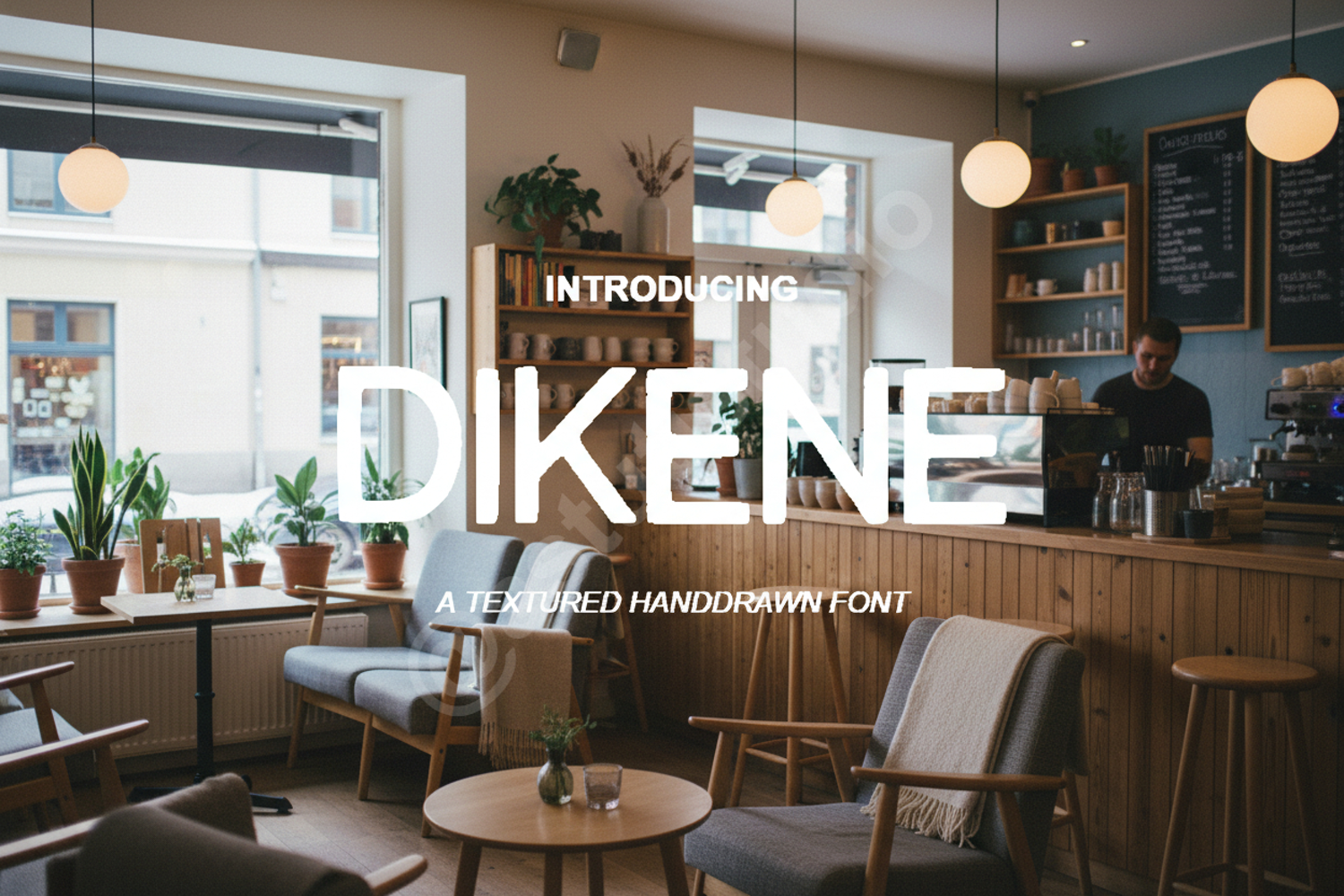
Dikene - Elegant & Modern Serif Typeface
Dikene
Elevate your design projects with Dikene, a premium serif typeface that blends timeless elegance with modern sophistication. Dikene is meticulously crafted to offer a clean, professional look while maintaining a unique personality that stands out in any composition. Whether you are working on high-end branding or delicate print materials, this font provides the versatility and quality required for professional-grade results.
- Branding and Identity: Create a memorable and authoritative brand presence with a font that exudes luxury.
- Wedding and Events: Perfect for sophisticated invitations, menus, and high-end event signage.
- Editorial Design: Ideal for magazine headers, stylish body text, and premium book covers.
- Social Media: Design eye-catching quotes and promotional graphics for your digital audience.
- Product Packaging: Enhance your product's shelf appeal with refined and legible typography.